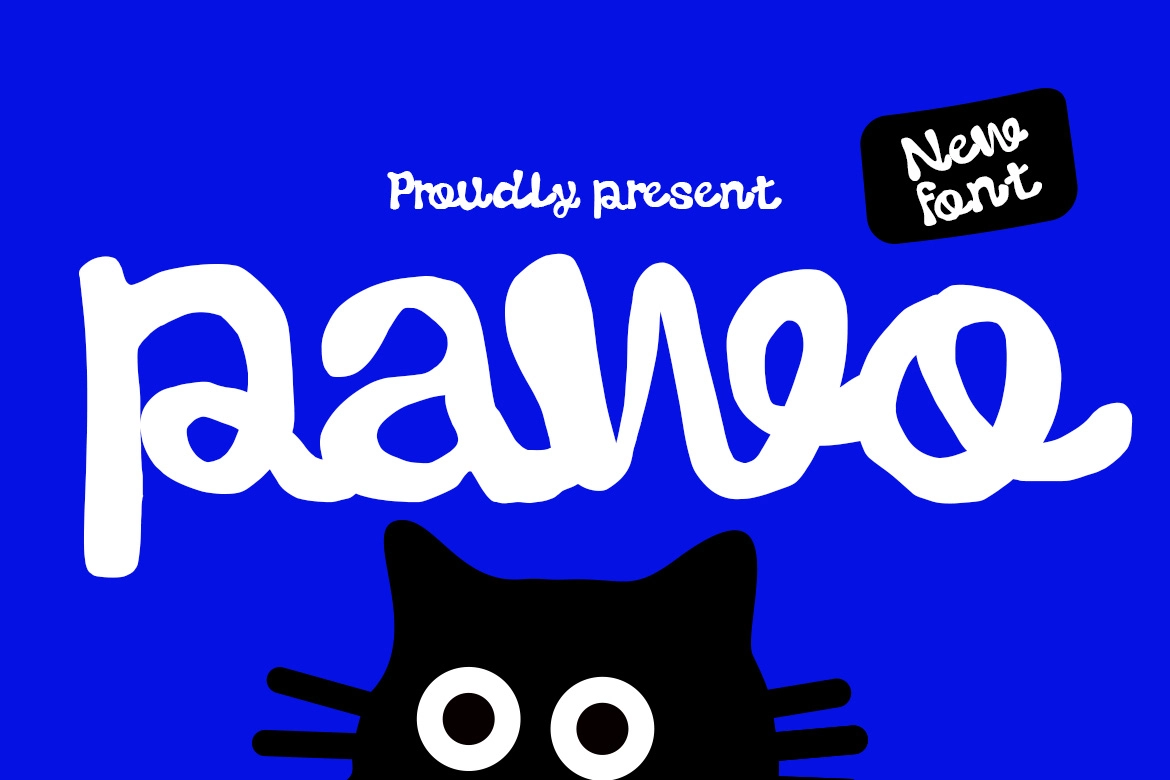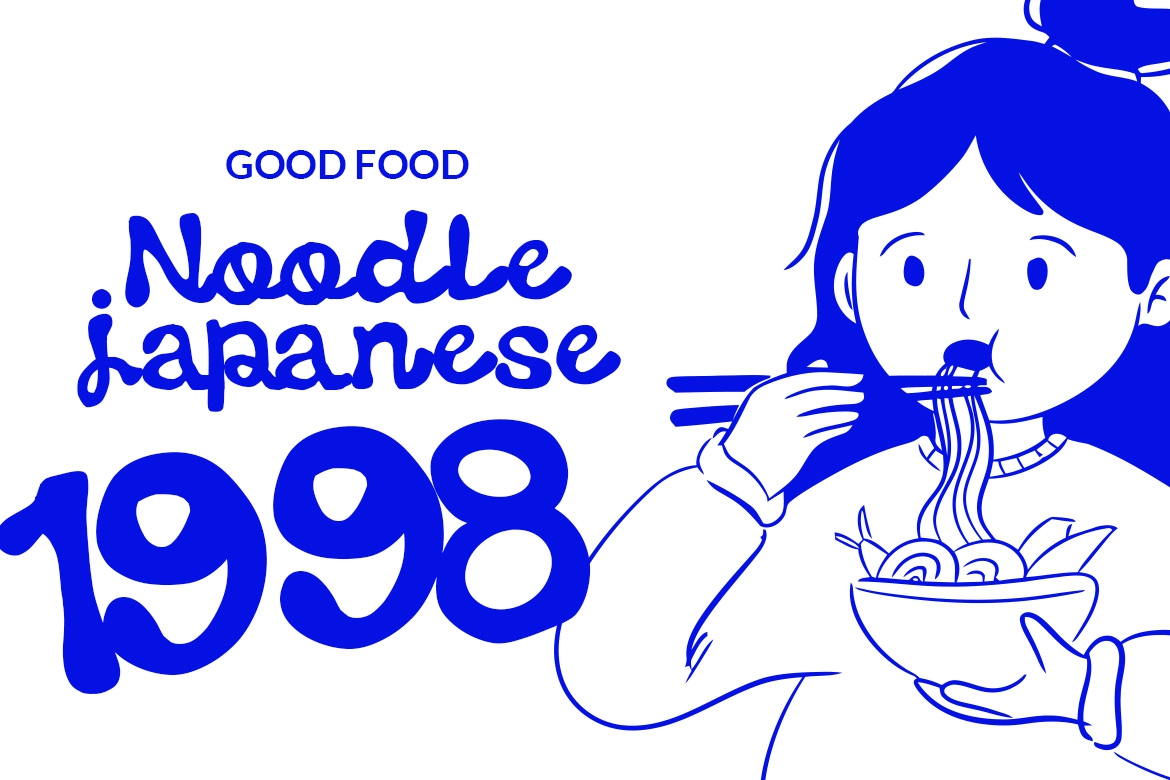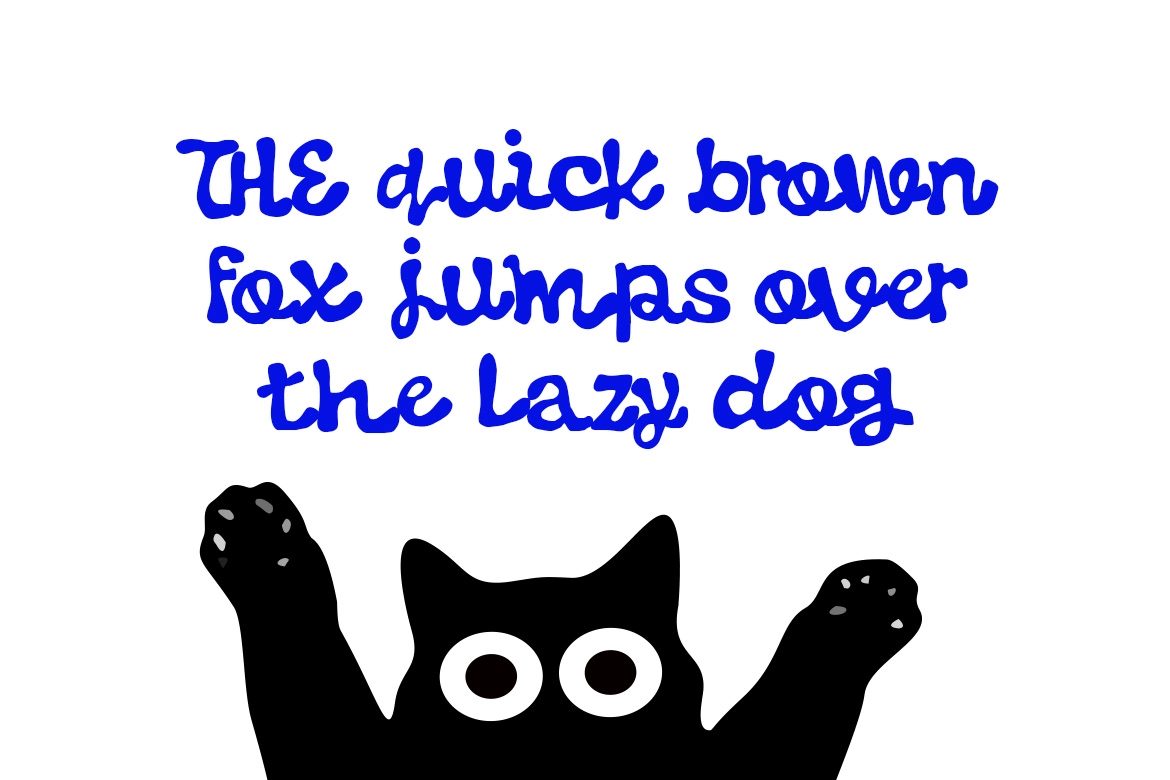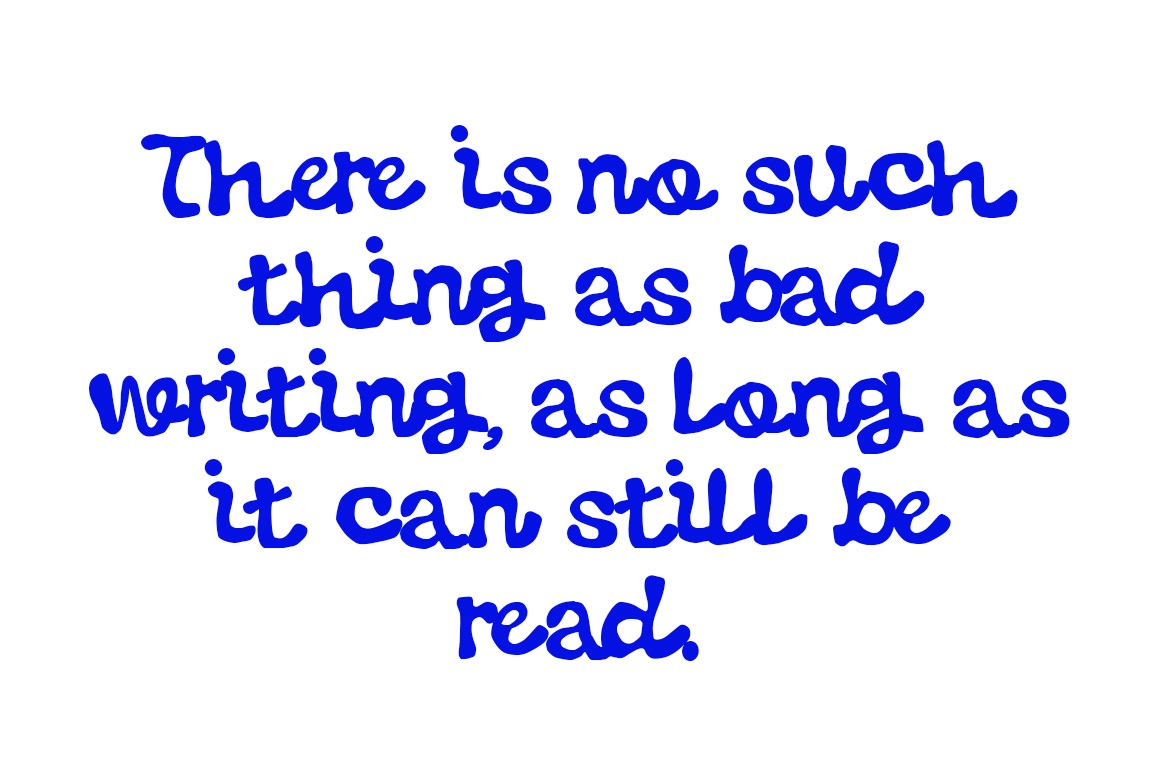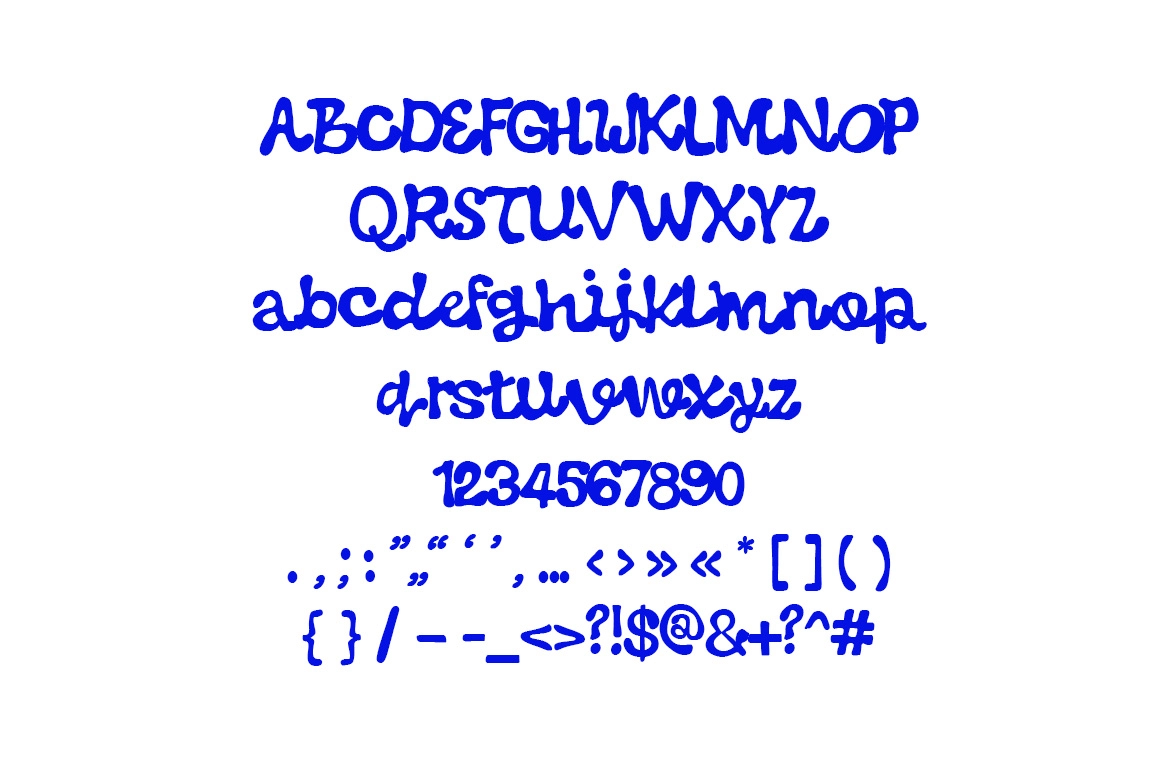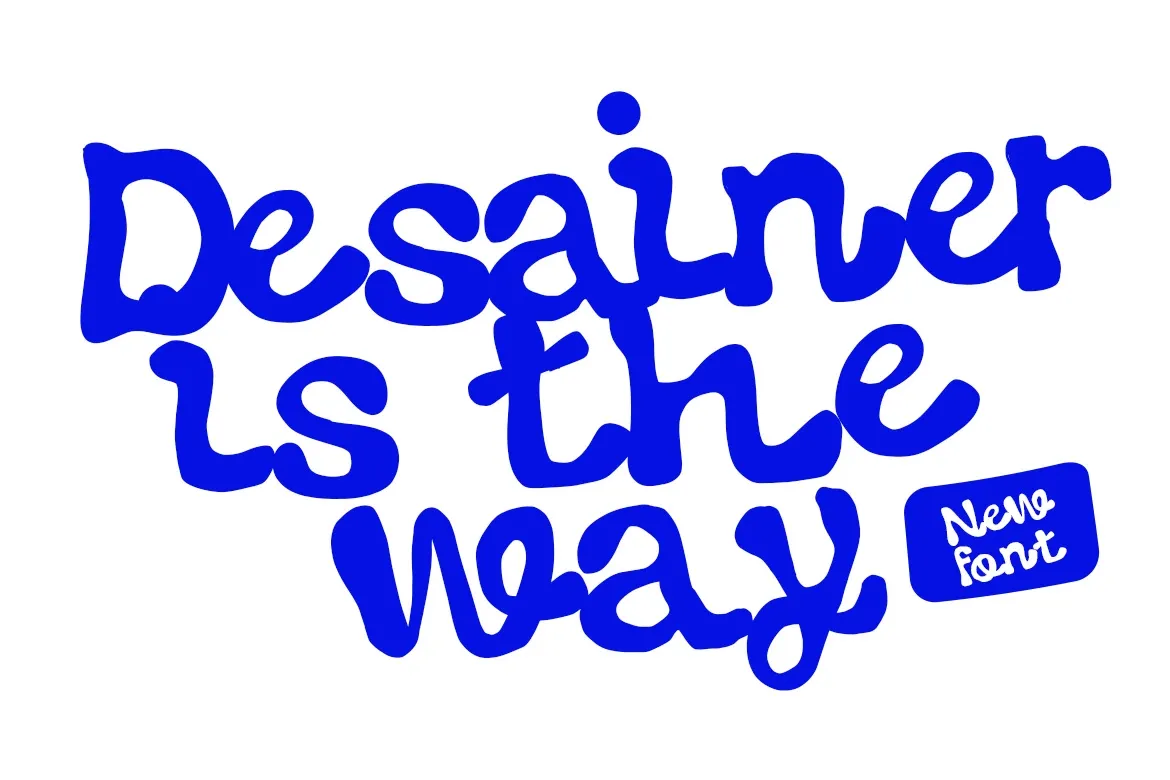
Pawo - Expressive Marker Font
Pawo
Pawo – Expressive Marker Font is a bold, playful typeface built with ultra-thick, rounded strokes that mimic the look of a juicy marker. Its hand-drawn character feels spontaneous and energetic, making every word appear friendly, confident, and impossible to ignore.
Designed for eye-catching headlines, posters, packaging, kids’ branding, social media graphics, and creative merchandise, Pawo brings a fun and modern handwritten vibe to your projects. The smooth curves and heavy forms create strong visual impact while keeping the text highly readable and approachable.
- Ultra-bold expressive marker style
- Rounded, hand-drawn strokes
- Uppercase & lowercase
- Great for playful branding & bold headlines